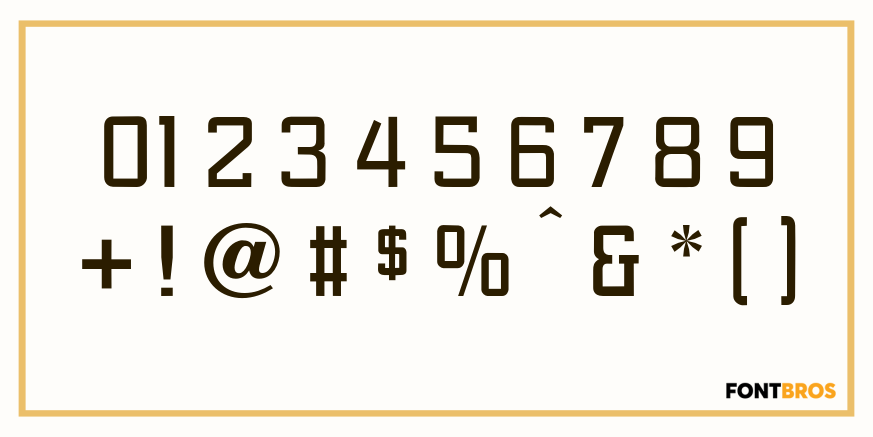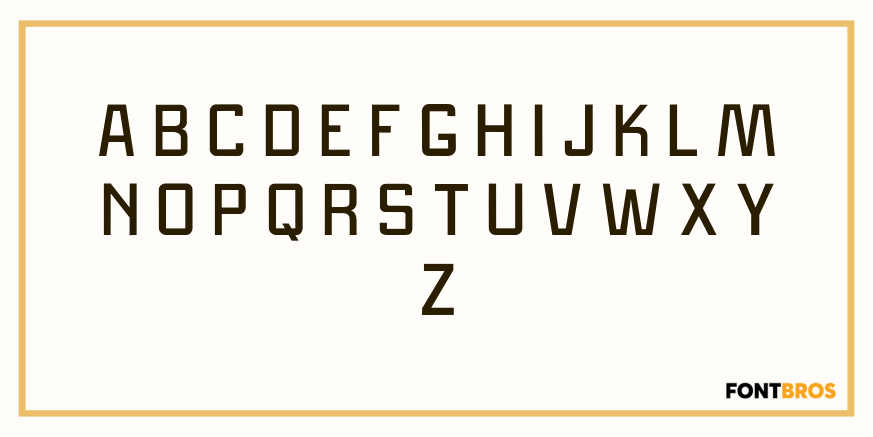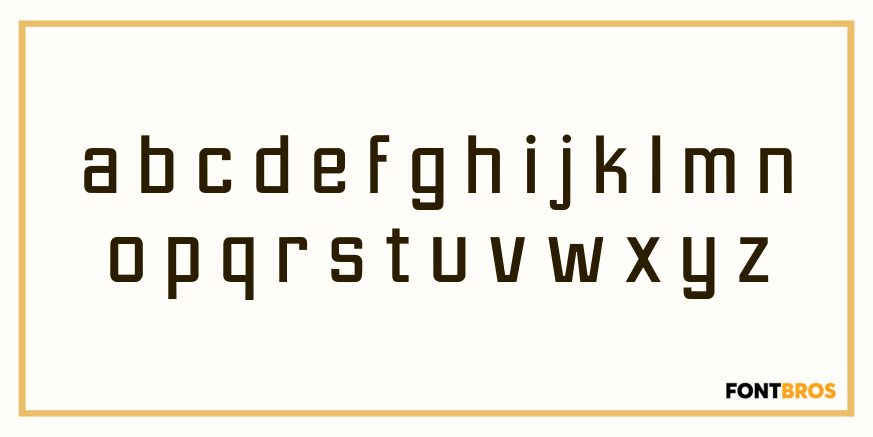
Bareback
Font Family by Solotype
The devil does indeed find work for idle hands. This was designed by Dan X. Solo with about no excuse whatsoever.
The name comes from the fact that a circus that we regularly did work for used it in one of their programs, the only time it was ever used as far as we can recall.